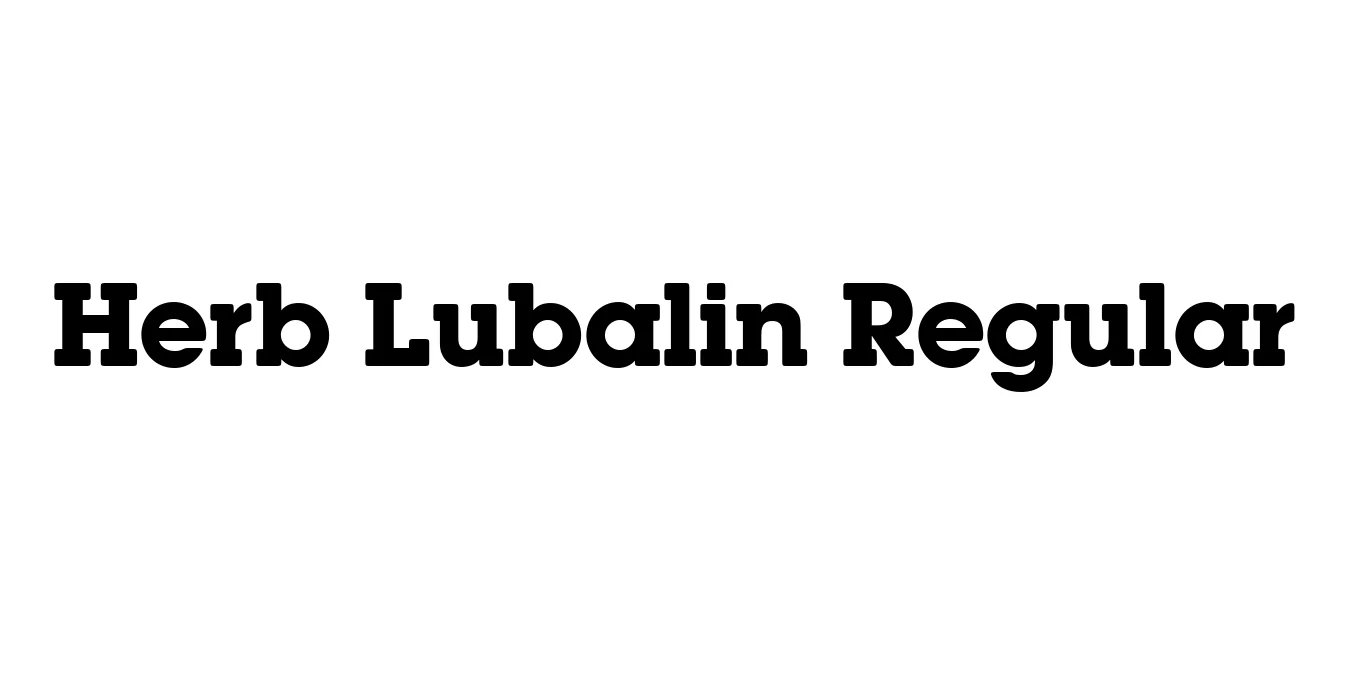
Herb Lubalin Regular
Designed by Herb Lubalin
Herb Lubalin Regular is a definitive slab serif typeface that captures the essence of 20th-century American graphic design. Originally conceived as a structural evolution of the geometric sans-serif ITC Avant Garde Gothic, this typeface was crafted to provide a robust, authoritative presence while maintaining a sophisticated, modern aesthetic. Herb Lubalin, the legendary typographer behind the face, utilized perfectly circular forms and heavy, block-like serifs to create a rhythmic visual language that defined the editorial look of the 1970s.
The history of this font is deeply tied to the era of phototypesetting, where its tight kerning and bold geometry allowed for expressive, overlapping character arrangements. It bridges the gap between industrial strength and high-fashion elegance, making it an enduring favorite for designers seeking a vintage yet timeless feel. Today, it stands as a testament to Lubalin's philosophy of 'typographics,' where the letterforms themselves become the primary illustrative element of a design.
Herb Lubalin Regular Best Uses
Ideal for striking magazine headlines, covers, and sophisticated layout work.
Perfect for creating strong, memorable logos and corporate identity systems.
Highly effective for large-scale typography and high-impact promotional materials.
Great for catching attention in both digital and print marketing campaigns.